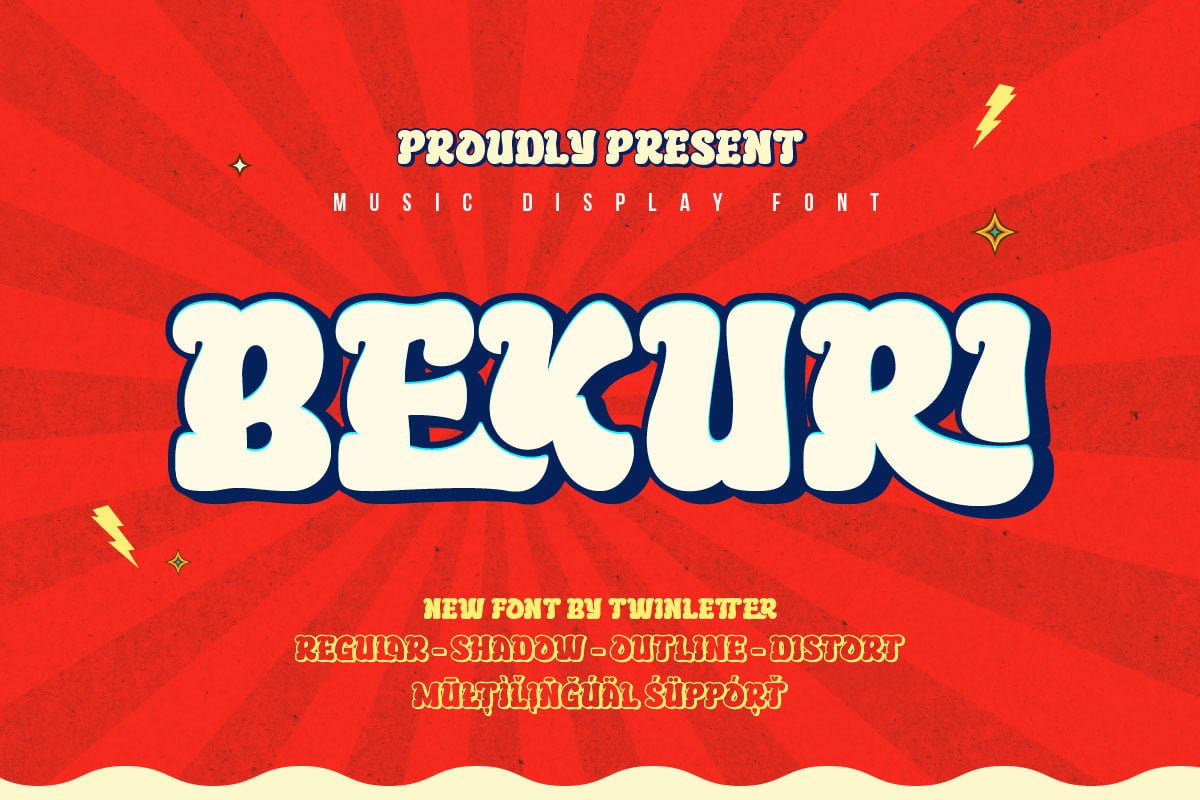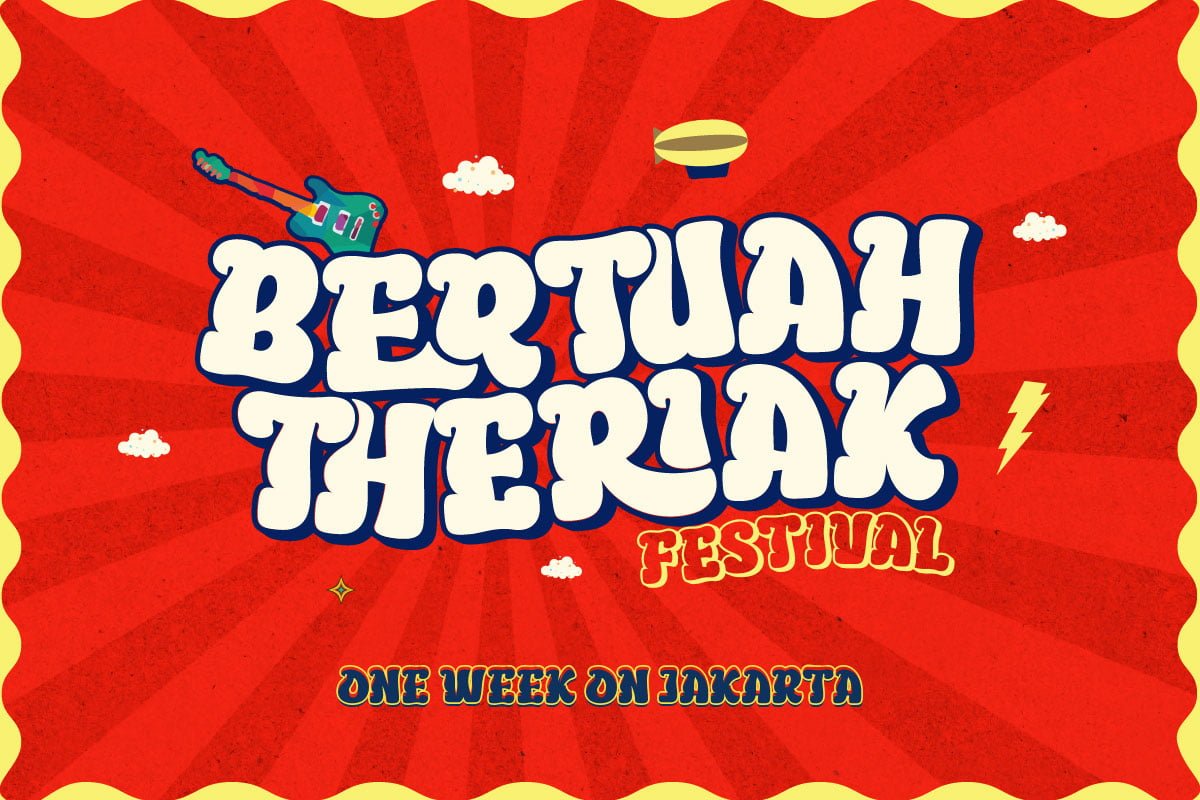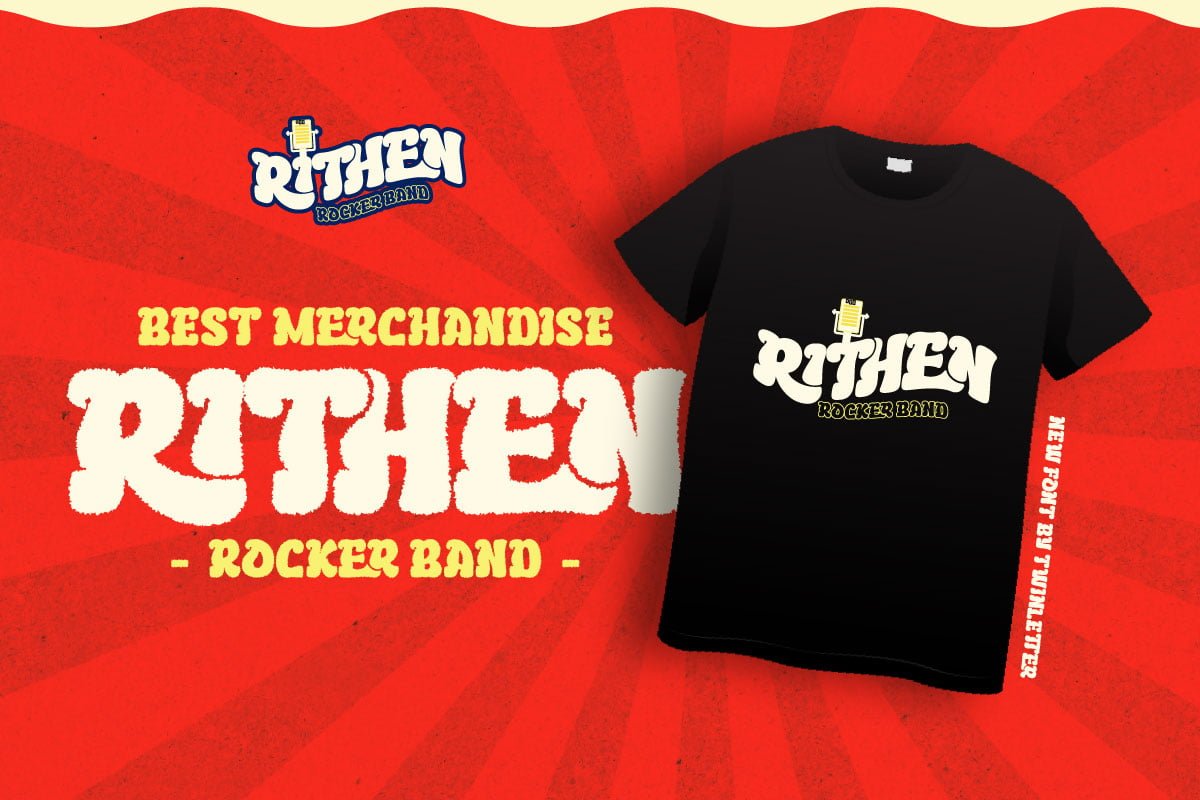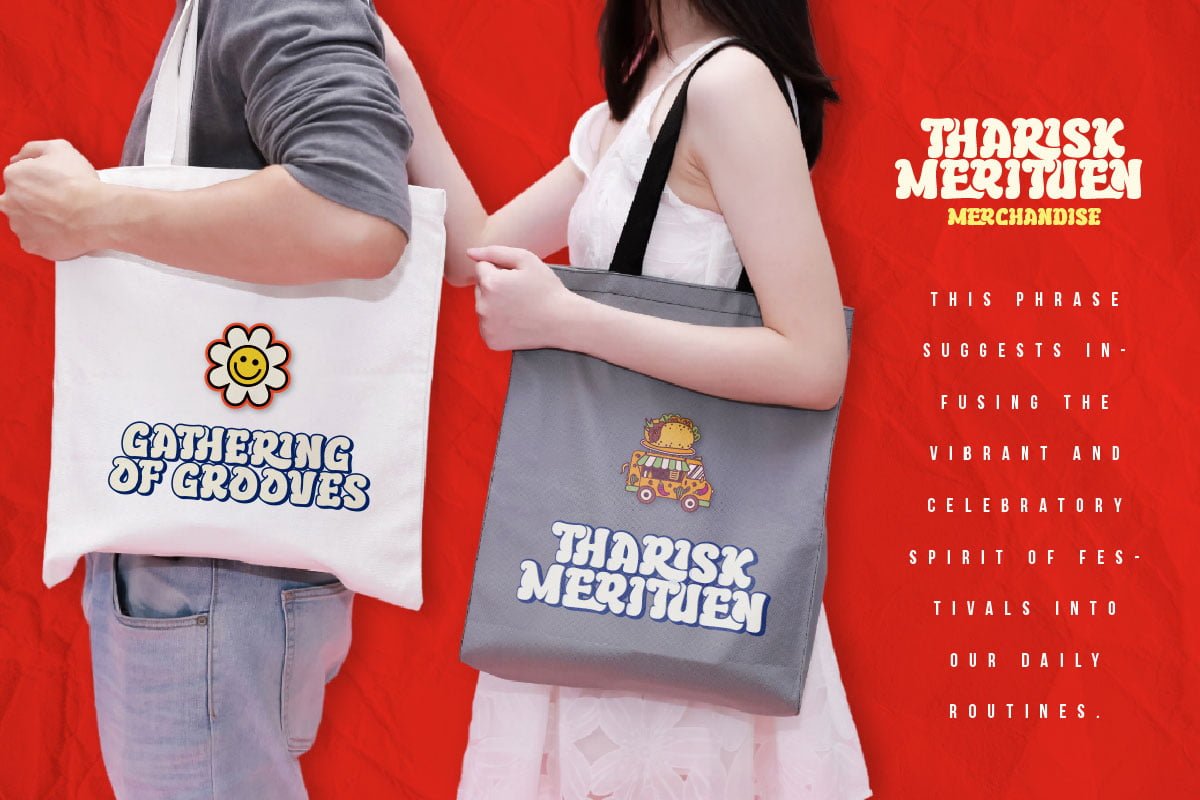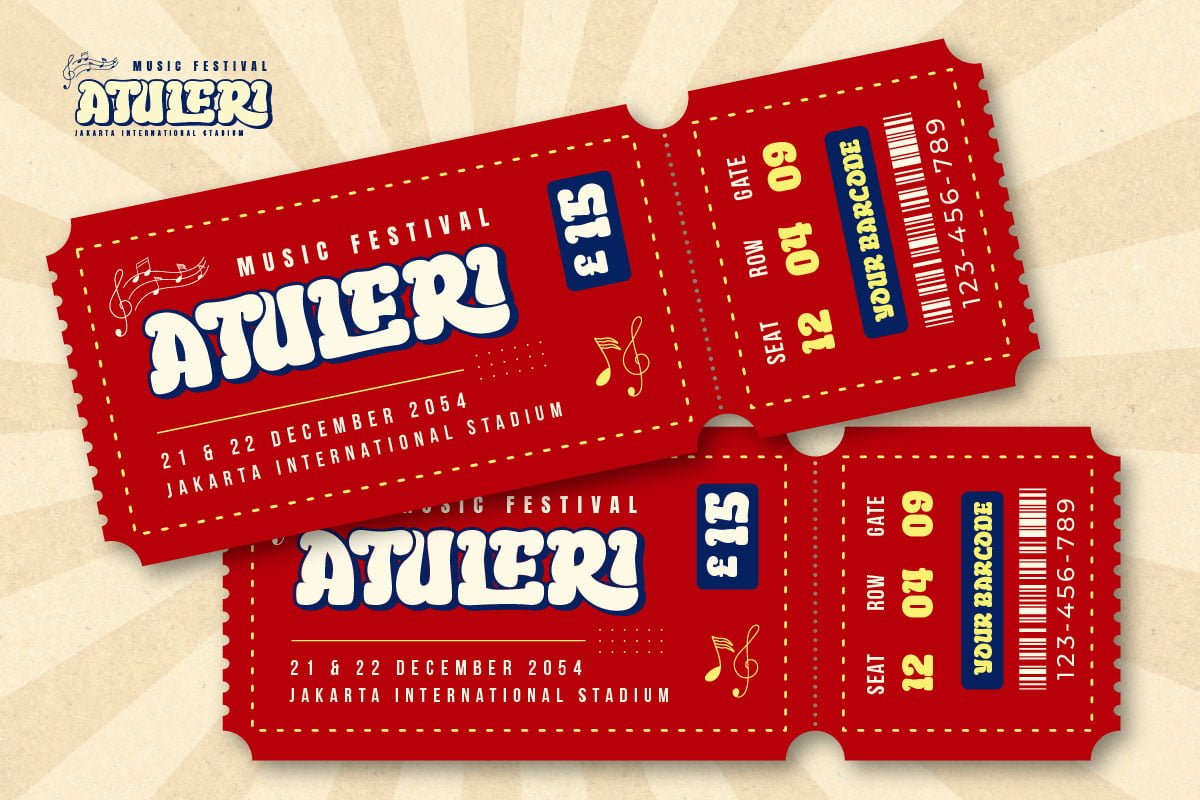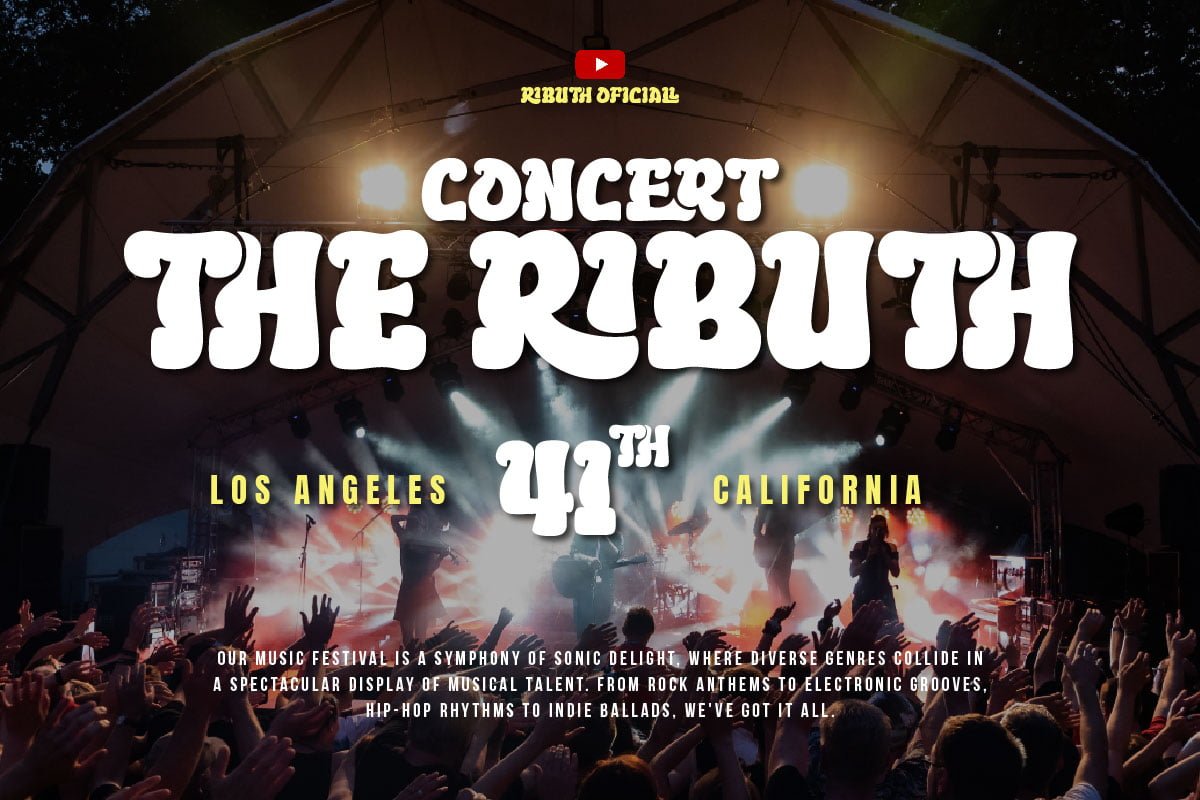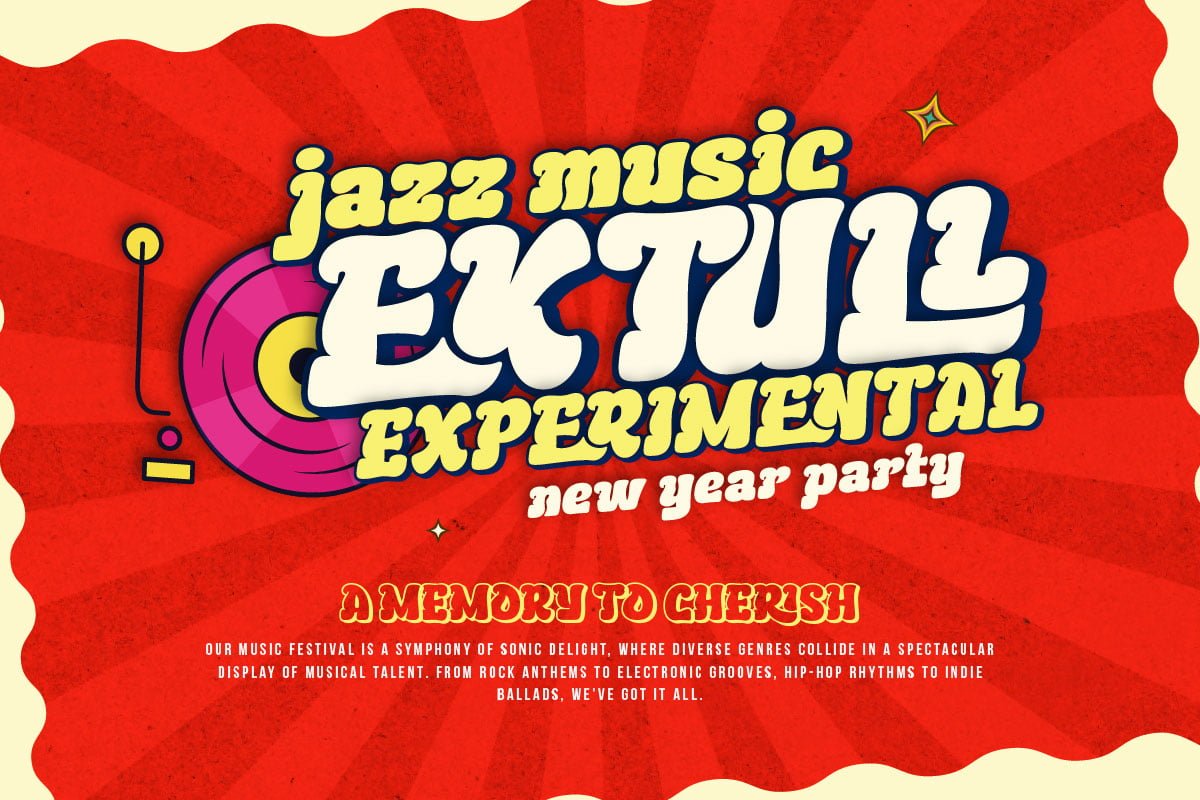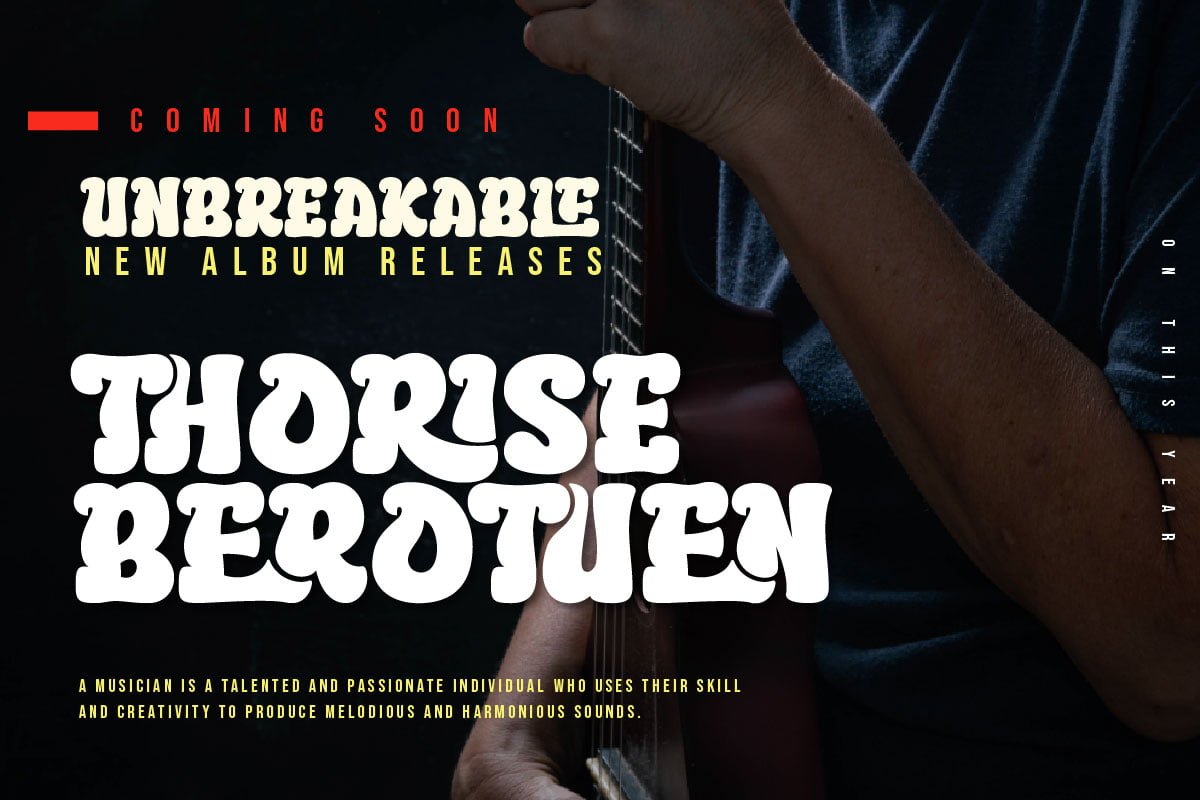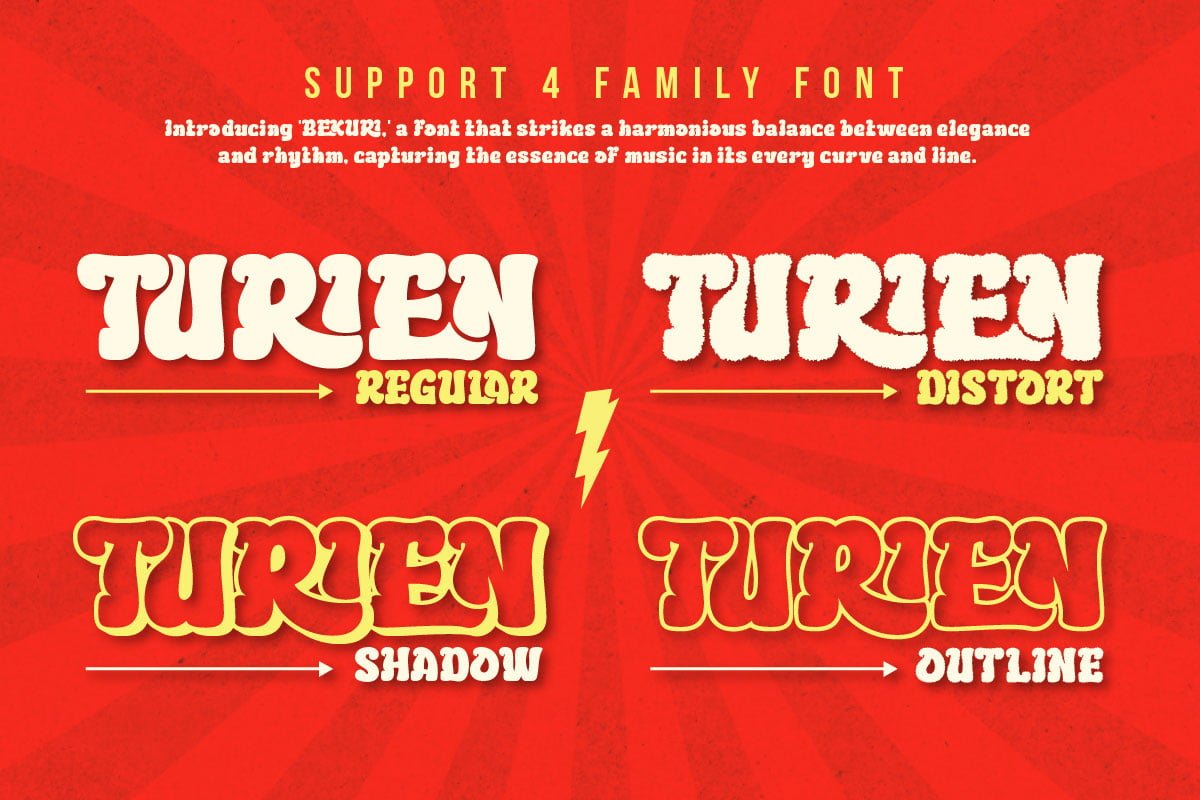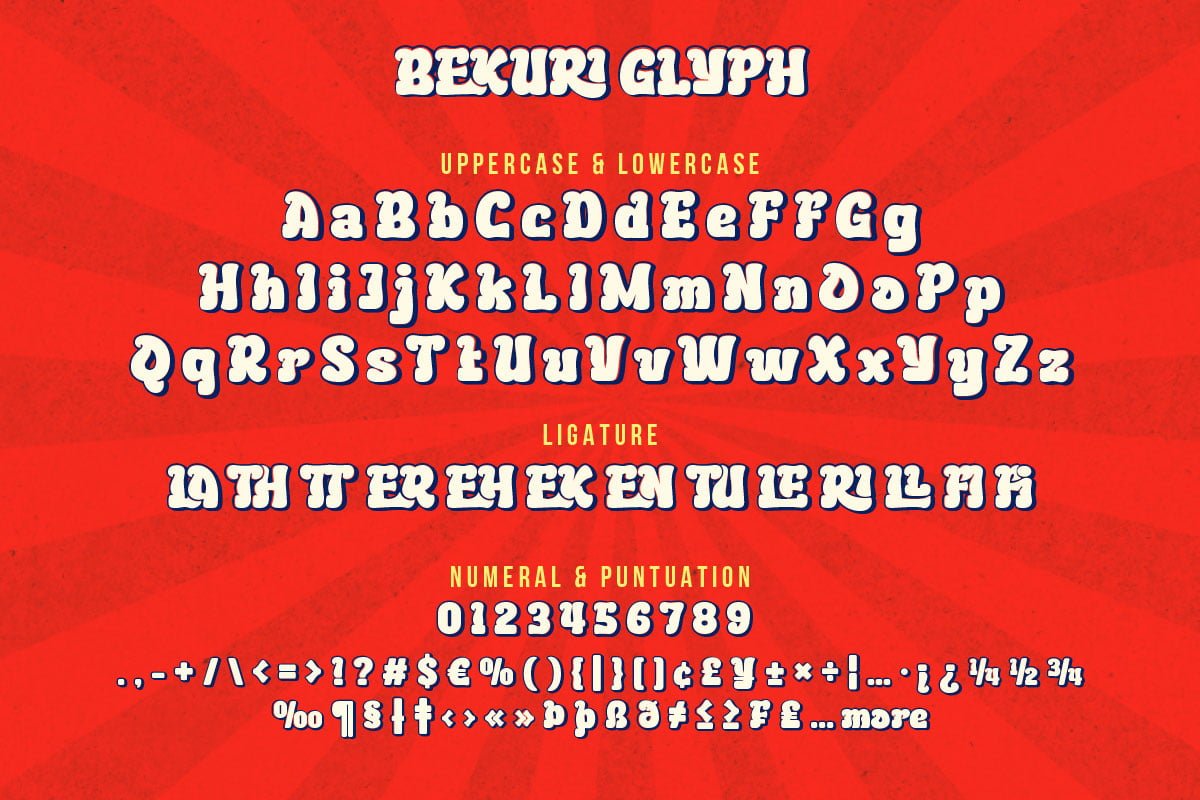
Bekuri – Display Font
Outline
Distort
Shadow
The Bekuri font is the perfect visual harmony for music-style projects, festivals, and special events. With seductive and graceful characteristics, this font carries a special tone suitable for celebrating historical moments in your designs.
With a family that includes regular, shadow, outline, and distort, Bekuri provides unlimited flexibility to depict your message with a powerful style. However, what makes this font really stand out is the ligatures that add a unique and artistic feel to each character, giving you the freedom to explore your creativity in every project.
Its ability to support multiple languages makes it an invaluable asset in reaching a global audience. Bringing visual beauty and musical charm to every touch, Bekuri is the key to bringing the feel of festivals and big events to every design.
So, if you are looking for a font that celebrates the musical style in all its glory, Bekuri is an undeniable choice.